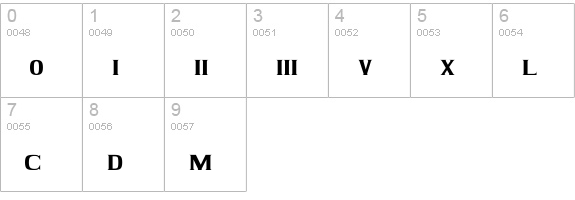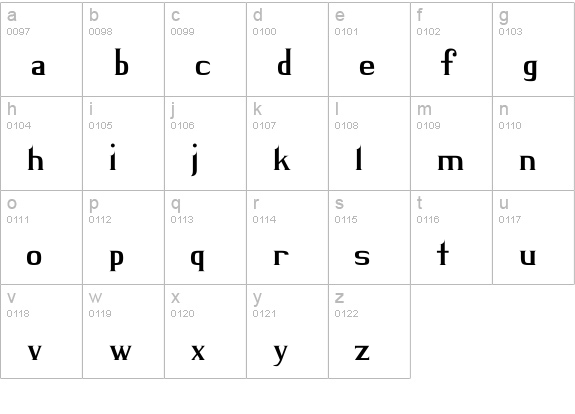
BLACK KNIGHT Regular is a maximum-weight, dramatic variant in the BLACK typeface family \xE2\x80\x94 well suited to maximum-impact headlines, posters, and packaging.
BLACK KNIGHT Regular font is a stunning display typeface that exudes elegance and sophistication. With its bold and distinctive letterforms, this font is perfect for creating eye-catching headlines, logos, and branding materials. The strong and powerful design of BLACK KNIGHT Regular makes it a versatile choice for a wide range of projects. What's even better is that BLACK KNIGHT Regular font is available for free download at FontsMarket.com. This means you can easily add this stylish font to your collection without any cost. Whether you're a designer looking to enhance your projects or someone who simply appreciates beautiful typography, BLACK KNIGHT Regular is a must-have font that will make a statement in any design. Download it now and elevate your creations with this modern and impactful typeface.